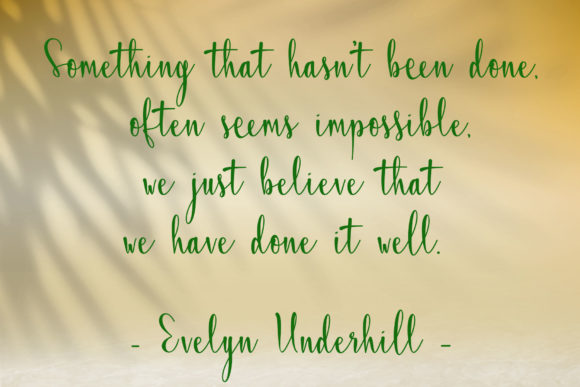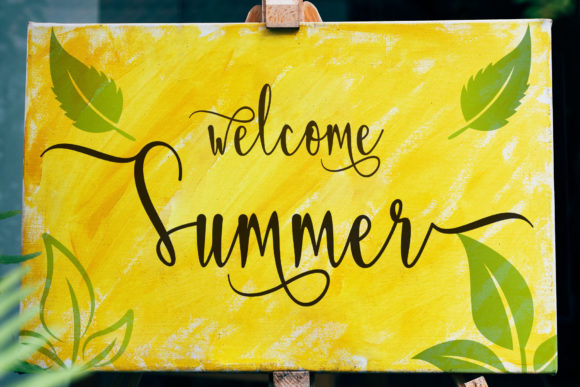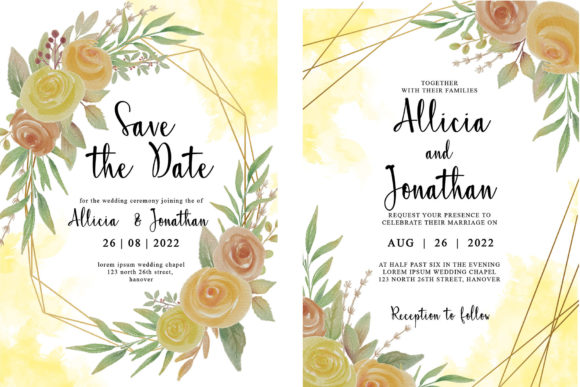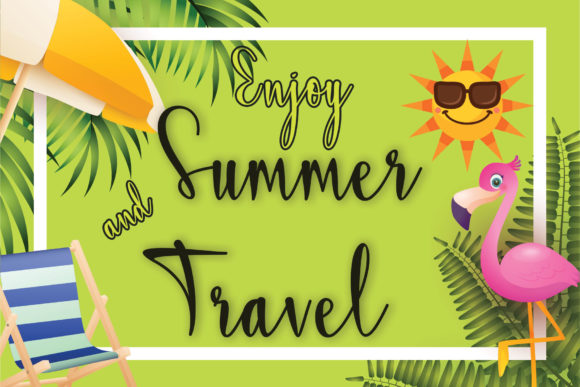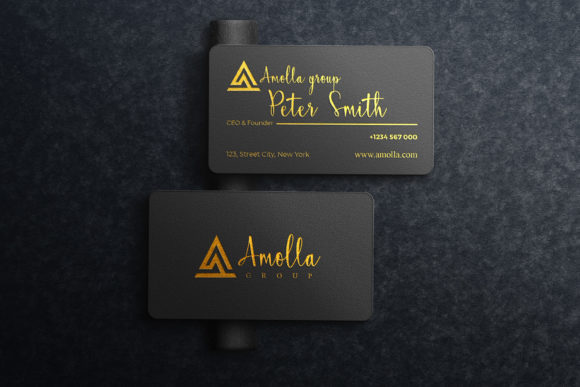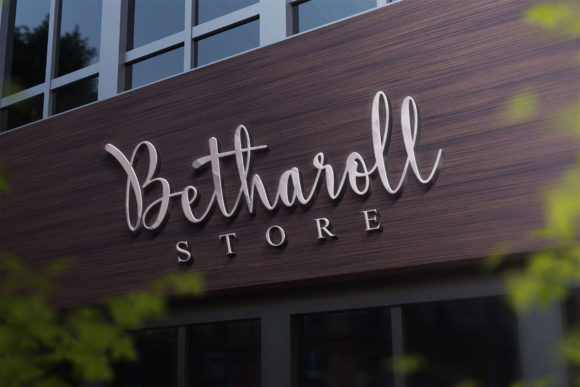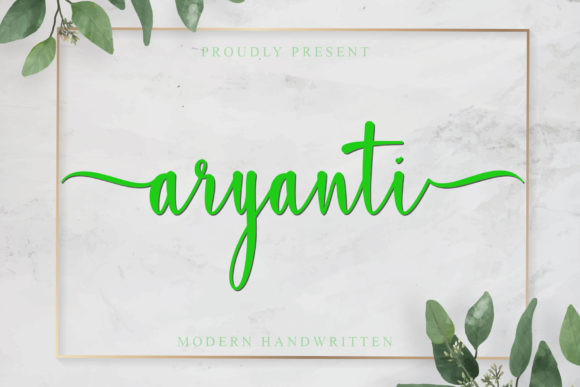
Aryanti Font: Elevate Your Designs with Elegance and Sophistication
In the world of typography, fonts play a crucial role in conveying the tone and personality of a design. For designers and crafters seeking to add a touch of elegance and refinement to their work, the Aryanti Font is an excellent choice. This lovely and delicate script font is designed to exude sophistication and poise, making it perfect for a wide range of design applications.
What Makes Aryanti Font Special?
Aryanti Font is a beautifully crafted script font that boasts a range of features that set it apart from other fonts. One of its standout characteristics is its PUA (Private Use Area) encoding, which allows users to access all glyphs and swashes with ease. This means that designers can effortlessly incorporate intricate details and flourishes into their designs, taking their work to the next level.
Designed for Beauty and Versatility
Aryanti Font was particularly crafted for designers and crafters who need a beautiful and refreshing look to their designs. Whether you’re working on a branding project, creating social media graphics, or designing digital products, this font is sure to impress. Its elegant and refined appearance makes it suitable for a wide range of applications, from luxury brands to wedding designs and beyond.
Key Features of Aryanti Font
- PUA Encoded: Easy access to all glyphs and swashes for added versatility and creativity.
- Delicate Script Font: Lovely and refined, perfect for designs that require an elegant touch.
- Elegant and Sophisticated: Ideal for luxury brands, wedding designs, and high-end products.
How to Use Aryanti Font in Your Designs
Using Aryanti Font in your designs is straightforward and easy. Here are a few tips to get you started:
- Pair it with Other Fonts: Combine Aryanti Font with complementary fonts to create a unique and visually appealing typography combination.
- Experiment with Swashes: Take advantage of the font’s PUA encoding to add intricate details and flourishes to your designs.
- Adjust Font Sizes: Play with different font sizes to create visual hierarchy and emphasize key elements in your design.
Who Can Benefit from Aryanti Font?
Aryanti Font is an excellent choice for a wide range of designers and crafters, including:
- Graphic Designers: Looking for a elegant and refined font for branding, logos, and marketing materials.
- Digital Product Designers: Seeking to create beautiful and sophisticated digital products, such as ebooks and courses.
- Wedding and Event Designers: Needing a luxurious and elegant font for wedding invitations, stationery, and event branding.
- Crafters and Sellers: Looking to add a touch of elegance and sophistication to their products, such as labels, packaging, and marketing materials.